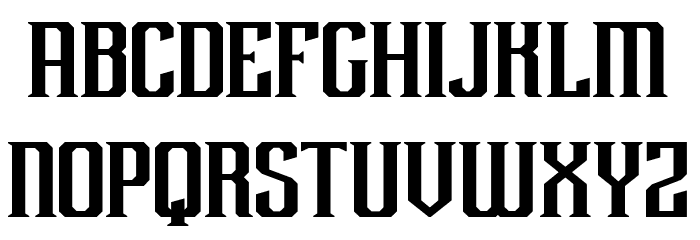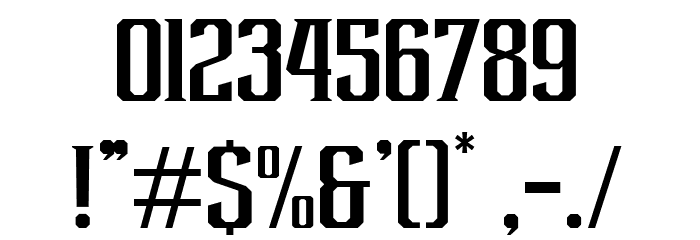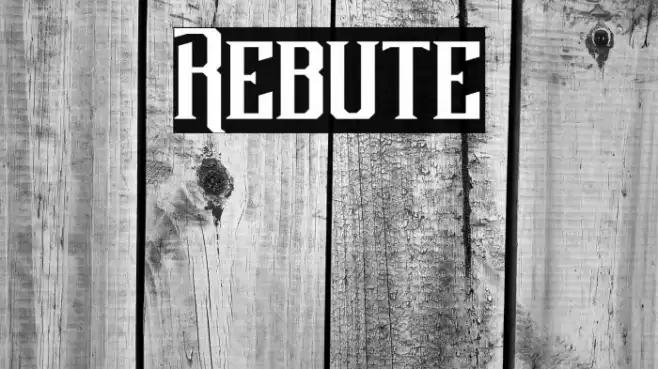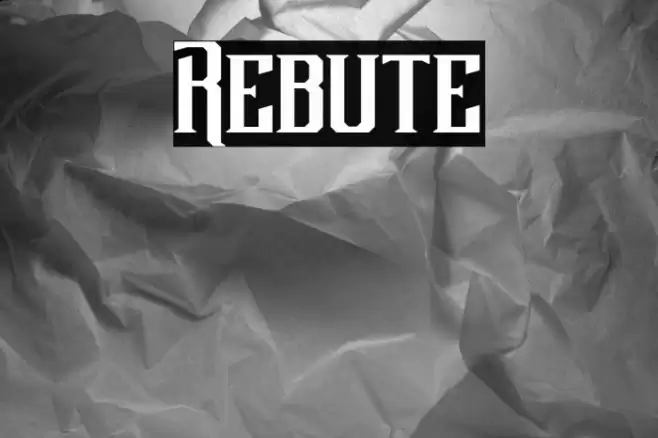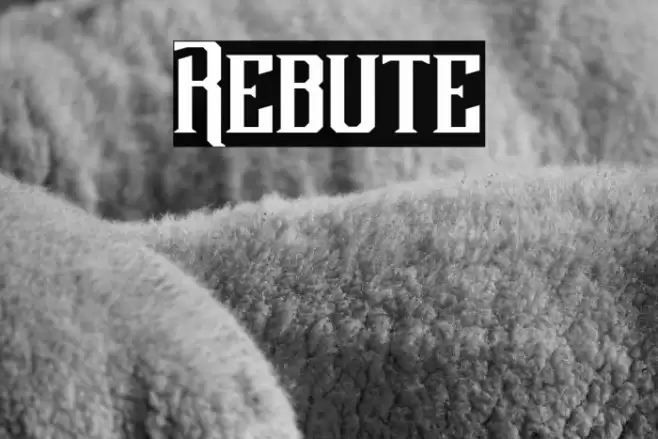
Rebute Font
This font features a bold and striking design with a distinct blackletter influence, characterized by sharp, angular lines and a gothic aesthetic. The uppercase letters are tall and imposing, while the lowercase letters maintain a consistent style with slightly more rounded edges. The numerals and special characters are crafted to match the overall theme, providing a cohesive look. The font's unique style makes it ideal for projects that require a dramatic and historical feel, such as posters, logos, or themed event materials.
A bold, blackletter-inspired font with sharp, angular lines and a gothic aesthetic.
- Font: Rebute
- Proposed Projects: Ideal for posters, logos, themed events, and any project requiring a dramatic, historical feel.
- Category: Blackletter
- Overall Style: Gothic, Dramatic